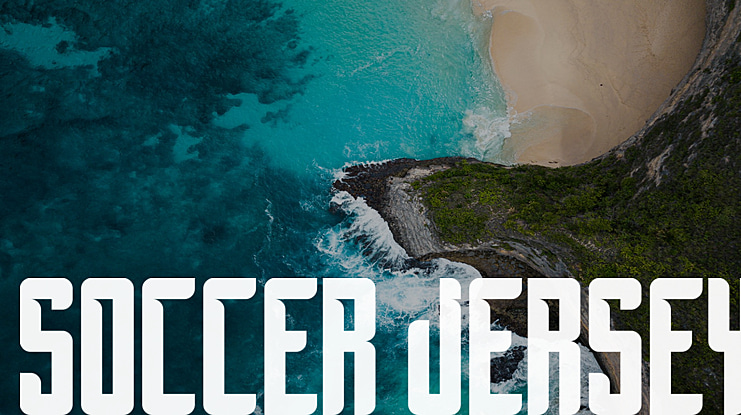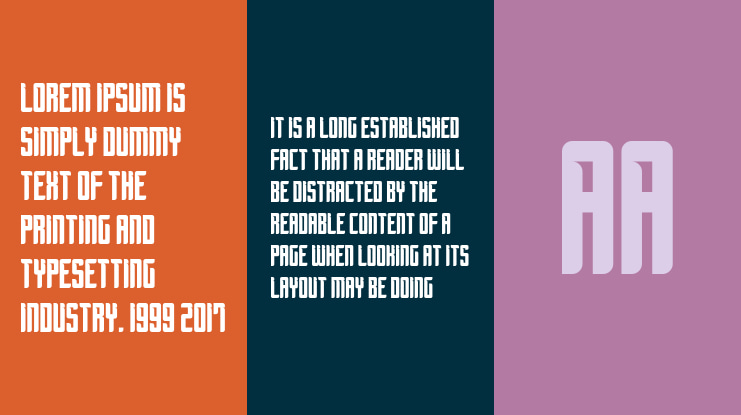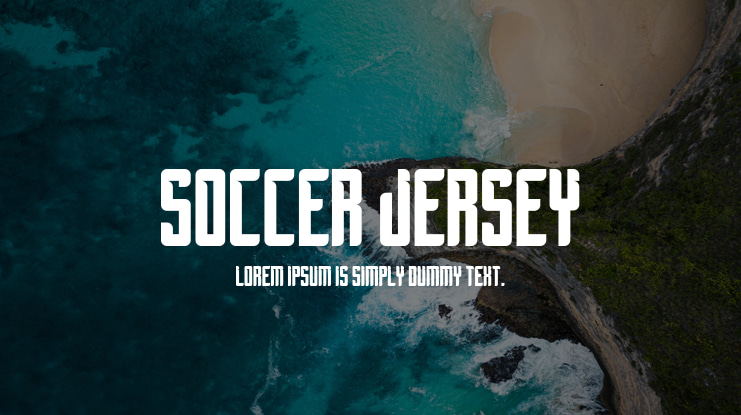
Soccer Jersey Font
André Felipe
This is a font designed especially for soccer jerseys, inspired by all the typography used in the team uniforms. And It's 100% free!(read the license and readme files)
I've been seeing a lot of people wanting fonts for jerseys, so I figured I could do one. Enjoy the font!